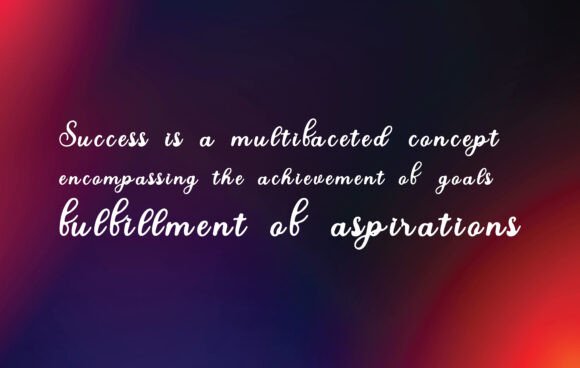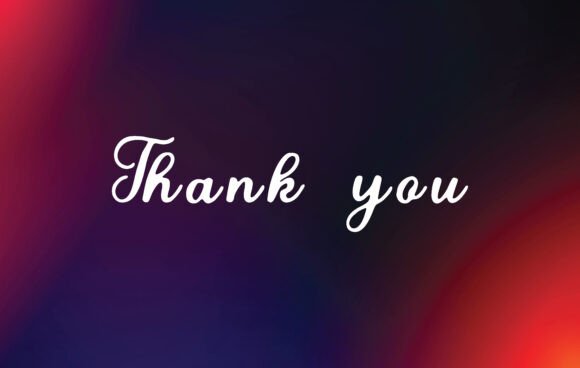
Introducing Attalee Font: Your New Go-To for Creative Projects
Are you tired of using the same old fonts for your creative projects? Look no further than Attalee Font, a versatile and eye-catching typeface designed to bring your ideas to life. With its clear and easy-to-read design, Attalee Font is perfect for both titles and body text, making it a great choice for a wide range of applications.
What Makes Attalee Font Special?
Attalee Font is made to be a go-to favorite for designers and crafters alike. Its unique design combines style and personality, making it perfect for projects that require a bit of flair. Whether you’re designing magazine covers, t-shirts, social media posts, branding, wedding invitations, or greeting cards, Attalee Font fits right in.
Key Features of Attalee Font
- Versatility: Attalee Font is designed to be versatile, making it suitable for a wide range of creative projects.
- Eye-catching: With its unique design, Attalee Font is sure to grab attention and make your projects stand out.
- Clear and Easy to Read: Attalee Font is clear and easy to read, making it perfect for both titles and body text.
- Style and Personality: Attalee Font has a unique style and personality that adds a touch of elegance to any project.
Attalee Font is perfect for designers and crafters who want to add a touch of elegance and sophistication to their projects. With its wide range of applications, Attalee Font is a great addition to any designer’s or crafter’s toolkit.
Applications of Attalee Font
Attalee Font can be used for a wide range of creative projects, including:
- Magazine Covers: Attalee Font is perfect for creating eye-catching magazine covers that grab attention.
- T-Shirts: Add a touch of style and personality to your t-shirt designs with Attalee Font.
- Social Media Posts: Make your social media posts stand out with Attalee Font’s unique design.
- Branding: Use Attalee Font to create a consistent brand image that reflects your style and personality.
- Wedding Invitations: Add a touch of elegance to your wedding invitations with Attalee Font.
- Greeting Cards: Make your greeting cards special with Attalee Font’s unique design.
Why Choose Attalee Font?
There are many reasons why you should choose Attalee Font for your creative projects. Here are just a few:
- Unique Design: Attalee Font has a unique design that sets it apart from other fonts.
- Versatility: Attalee Font can be used for a wide range of creative projects.
- Easy to Read: Attalee Font is clear and easy to read, making it perfect for both titles and body text.
- Style and Personality: Attalee Font has a unique style and personality that adds a touch of elegance to any project.
In conclusion, Attalee Font is a versatile and eye-catching typeface that is perfect for designers and crafters who want to add a touch of elegance and sophistication to their projects. With its wide range of applications, Attalee Font is a great addition to any designer’s or crafter’s toolkit. So why wait? Try Attalee Font today and bring your creative ideas to life!